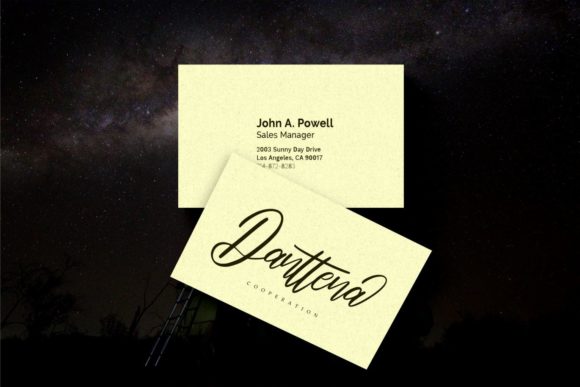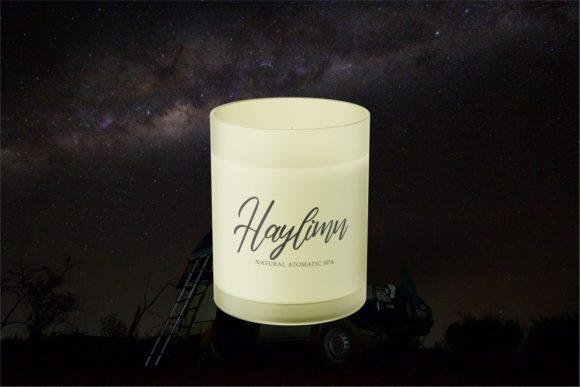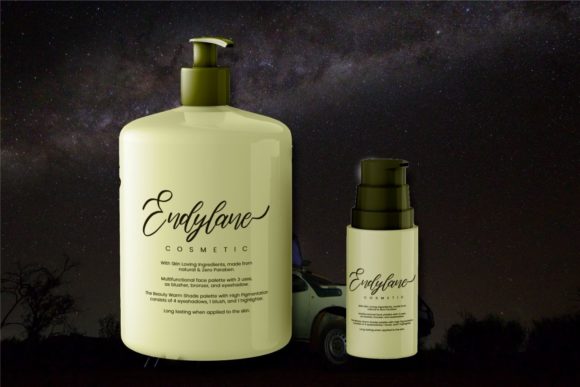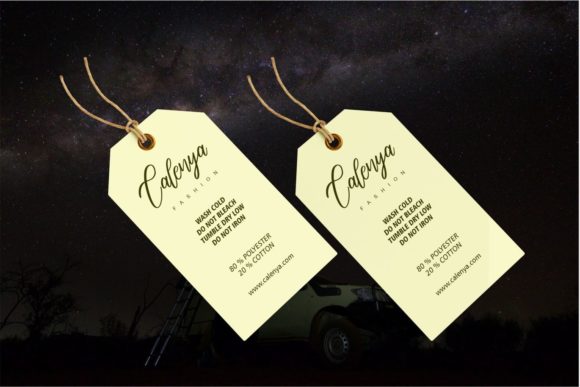
About Christtiano Font
Christtiano is a tall and cursive script font. It has a modern yet whimsical style and it will undoubtedly immerse your designs into a magical world.